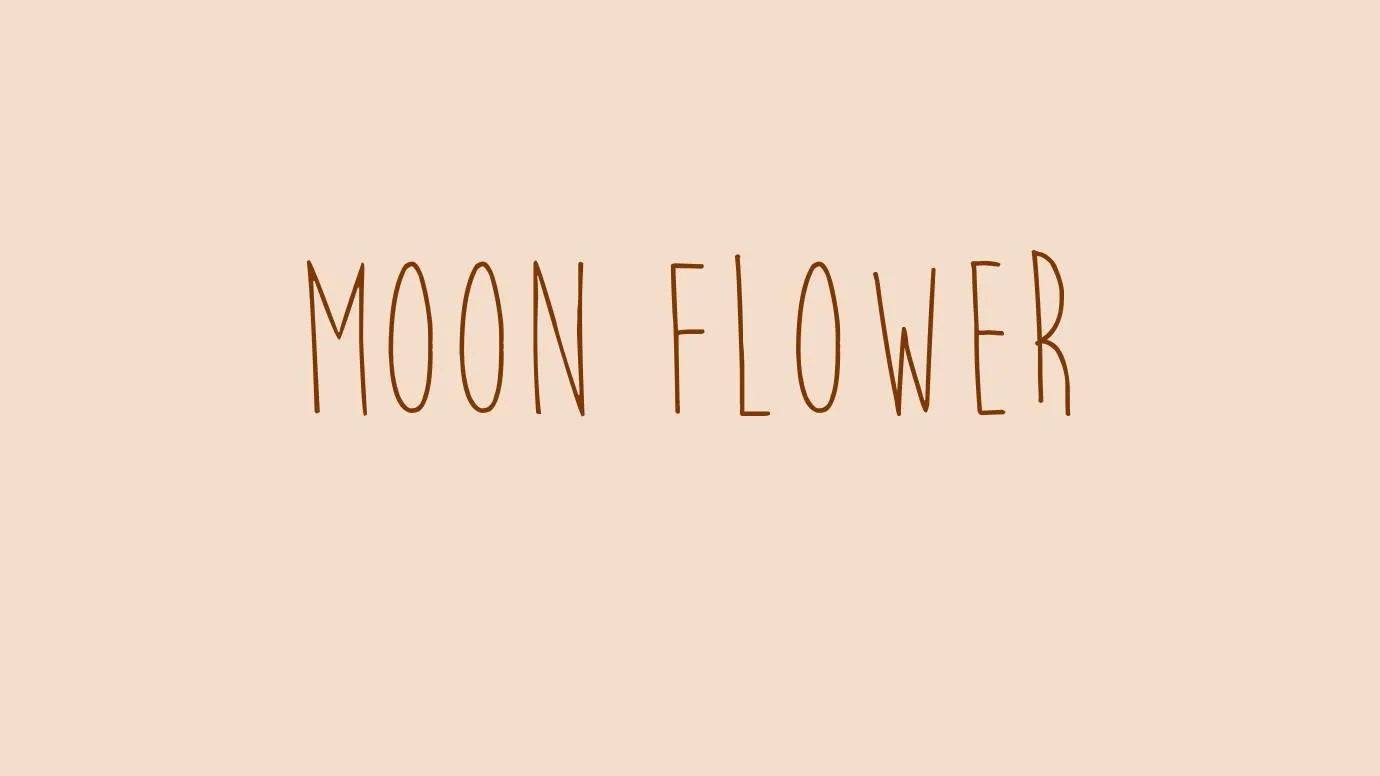
Moon Flower Font Free Download
Moon Flower Font Family is a very outstanding typeface that has thin handwritten look. This font family is classified in the category of handwritten font family. Denise Bentulan is a very famous designer of handwritten fonts who took charge of its creation.
Moon Flower Font
NameMoon Flower Font
TypeHandwritten
DesignerDenise Bentulan